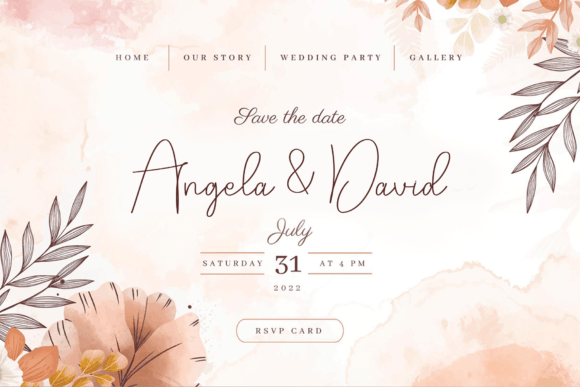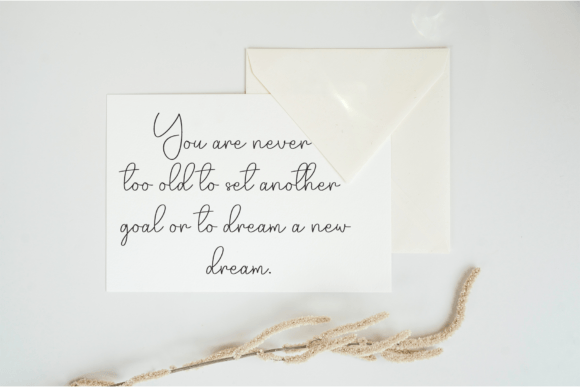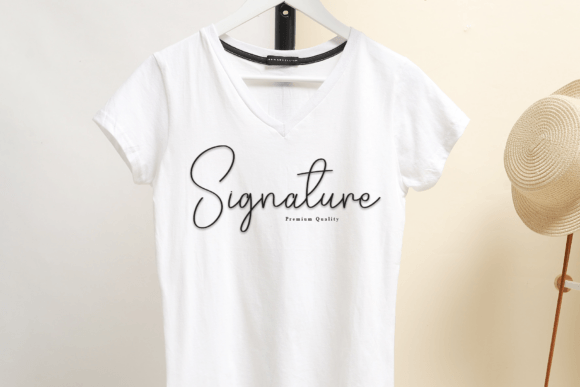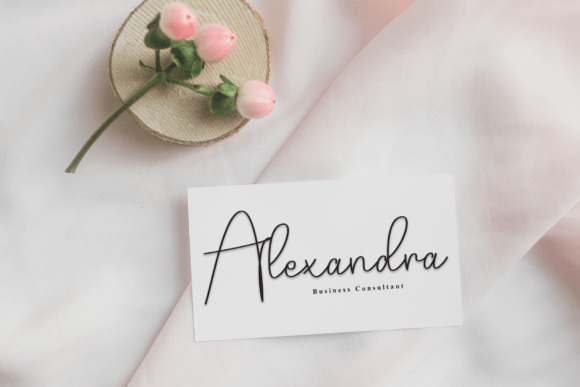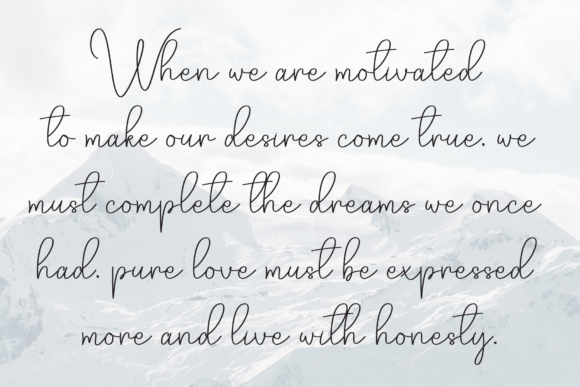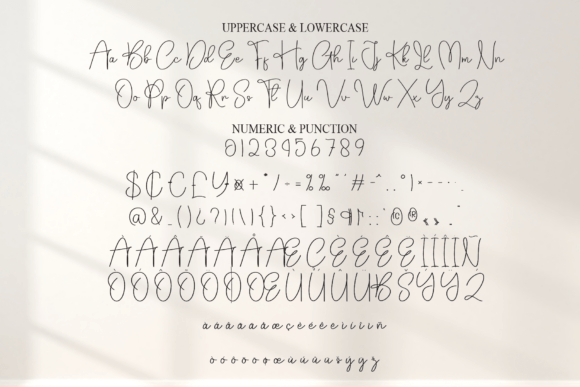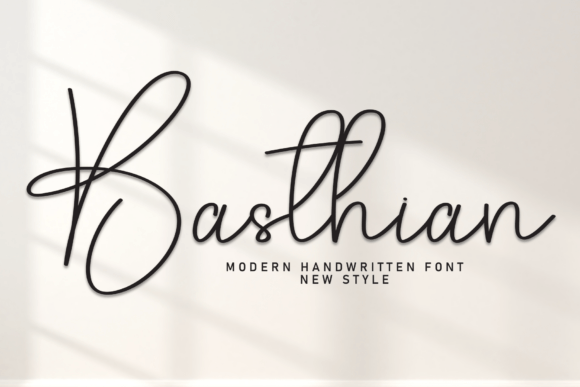
Introducing Basthian Font: The Elegant Handwritten Script Font for Creative Projects
Are you looking for a font that can add a personal touch to your designs? Do you want to create beautiful, elegant, and artistic projects that stand out from the crowd? Look no further than Basthian Font, a stunning handwritten script font that is perfect for creative designers and crafters.
What is Basthian Font?
Basthian Font is a beautiful handwritten script font with a smooth, flowing style. Its cursive letters give it a friendly, artistic vibe, making it great for a variety of creative projects. Whether you’re designing invitations, quotes, or other visual content, Basthian Font is the perfect choice.
Key Features of Basthian Font
So, what makes Basthian Font so special? Here are some of its key features:
- Smooth and flowing style: Basthian Font has a beautiful, smooth, and flowing style that gives it a natural and elegant look.
- Cursive letters: The font’s cursive letters give it a friendly, artistic vibe that’s perfect for creative projects.
- Handwritten style: Basthian Font is a handwritten script font, which means it has a personal and unique touch.
- Elegant and sophisticated: Despite its casual, handwritten style, Basthian Font is elegant and sophisticated, making it perfect for a variety of design projects.
Uses for Basthian Font
Basthian Font is a versatile font that can be used for a variety of creative projects. Here are some ideas to get you started:
- Invitations: Use Basthian Font to create beautiful, elegant invitations for weddings, parties, and other special events.
- Quotes and posters: Add a personal touch to your quotes and posters with Basthian Font’s smooth, flowing style.
- Creative projects: Basthian Font is perfect for a variety of creative projects, including scrapbooking, card making, and other paper crafts.
- Digital designs: Use Basthian Font to add a personal touch to your digital designs, including social media graphics, blog posts, and more.
Benefits of Using Basthian Font
So, why should you choose Basthian Font for your design projects? Here are some benefits of using this beautiful font:
- Unique and personal touch: Basthian Font adds a unique and personal touch to your designs, making them stand out from the crowd.
- Elegant and sophisticated: Despite its casual, handwritten style, Basthian Font is elegant and sophisticated, making it perfect for a variety of design projects.
- Easy to read: Basthian Font is easy to read, even in small sizes, making it perfect for a variety of design projects.
- Versatile: Basthian Font can be used for a variety of creative projects, from invitations and quotes to digital designs and more.
Tips for Using Basthian Font
Here are some tips for using Basthian Font in your design projects:
- Use it sparingly: Basthian Font is a beautiful font, but it can be overwhelming if used too much. Use it sparingly to add a personal touch to your designs.
- Pair it with other fonts: Basthian Font pairs well with other fonts, including serif and sans serif fonts. Experiment with different pairings to find the perfect combination.
- Experiment with colors: Basthian Font looks great in a variety of colors, from bold and bright to soft and pastel. Experiment with different colors to find the perfect look for your design.
Basthian Font is a beautiful handwritten script font that is perfect for creative designers and crafters. Its smooth, flowing style and cursive letters give it a friendly, artistic vibe, making it great for a variety of design projects. With its elegant and sophisticated look, Basthian Font is perfect for adding a personal touch to your designs. Whether you’re designing invitations, quotes, or other visual content, Basthian Font is a great choice.